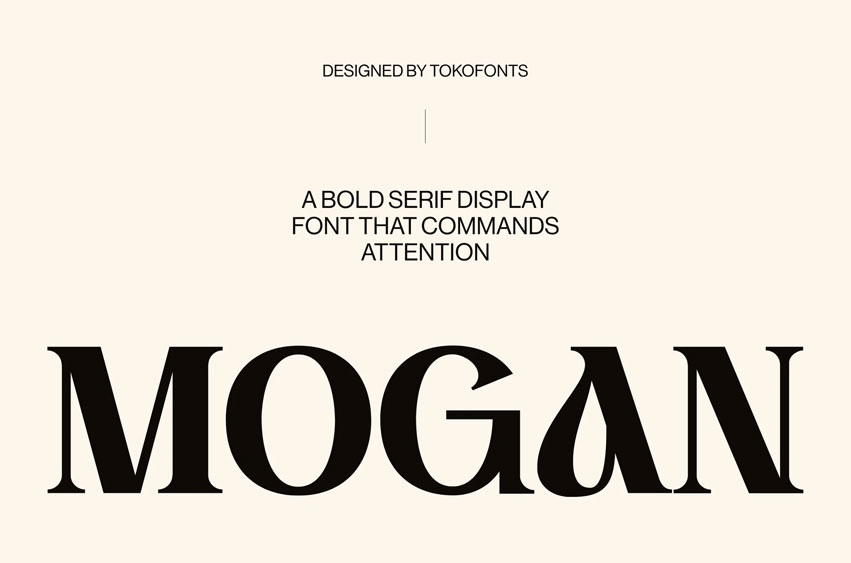
Mogan Font is a bold serif display typeface designed to command attention with its strong and confident presence. With high contrast strokes and distinctive letterforms, it brings a sense of elegance and authority, making it ideal for logo, branding, editorial, and headline use. Its refined details and stylish curves create a timeless aesthetic that stands out in both modern and classic design settings.
As a display font, Mogan font works perfectly for projects that require a striking visual impact while maintaining a sophisticated tone. Whether used in fashion, luxury branding, or creative layouts, it delivers a balance of boldness and elegance, ensuring your designs feel premium, memorable, and visually compelling.